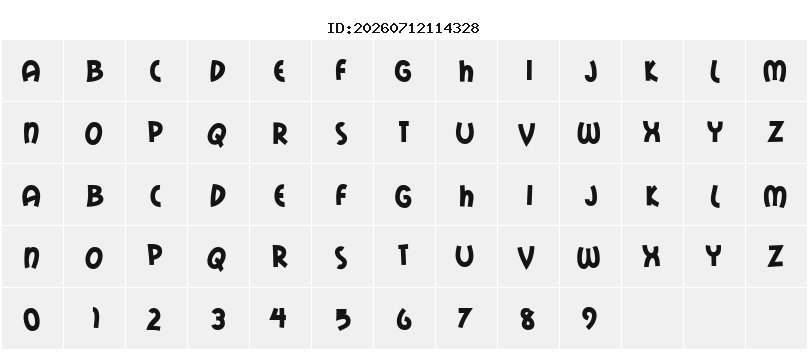
Mail Ray Stuff Preview
• Font Name: Mail Ray Stuff
• Font ID: RayLarabie: Mail Ray Stuff: 1999
• Full Font Name: Mail Ray Stuff
• Version: Version 2.000 2004
• PostScript Name: MailRayStuff
• Character Count: 174
• Designer: Ray Larabie
• Manufacturer: Ray Larabie
About Mail Ray Stuff.ttf
Mail Ray Stuff.ttf is a modern, elegant sans-serif font designed for ultimate readability and visual harmony. Perfect for branding, headlines, web design, and print materials.